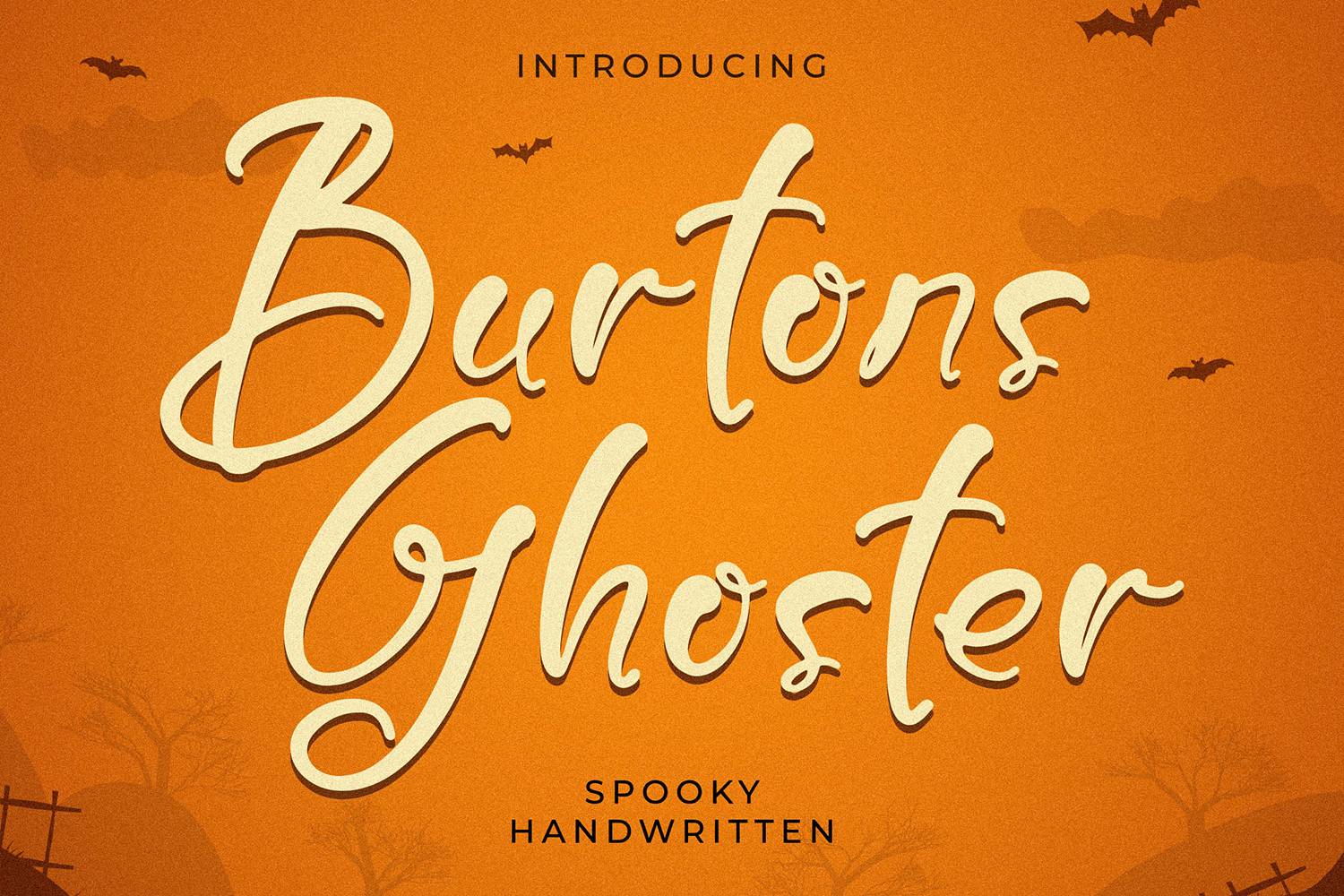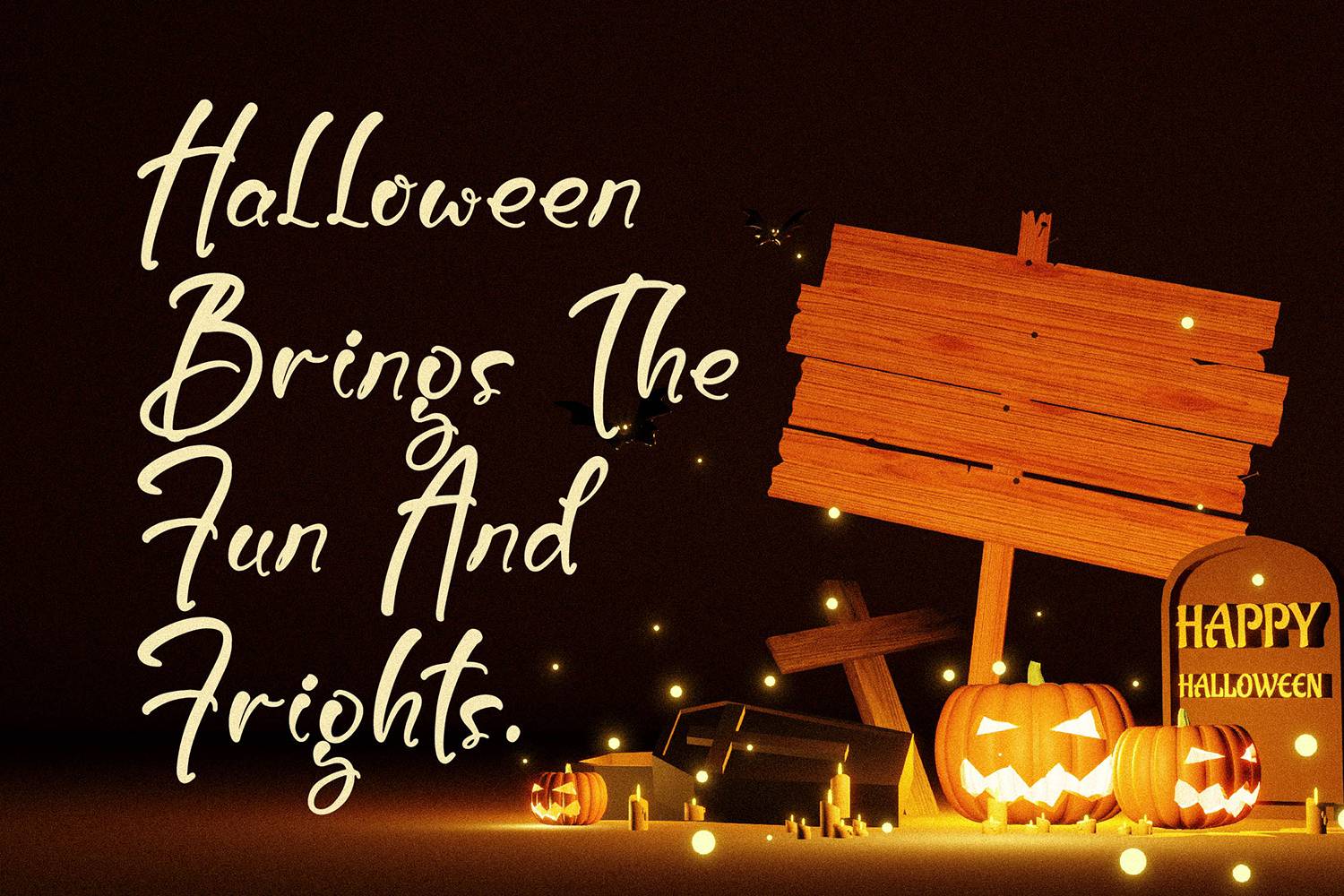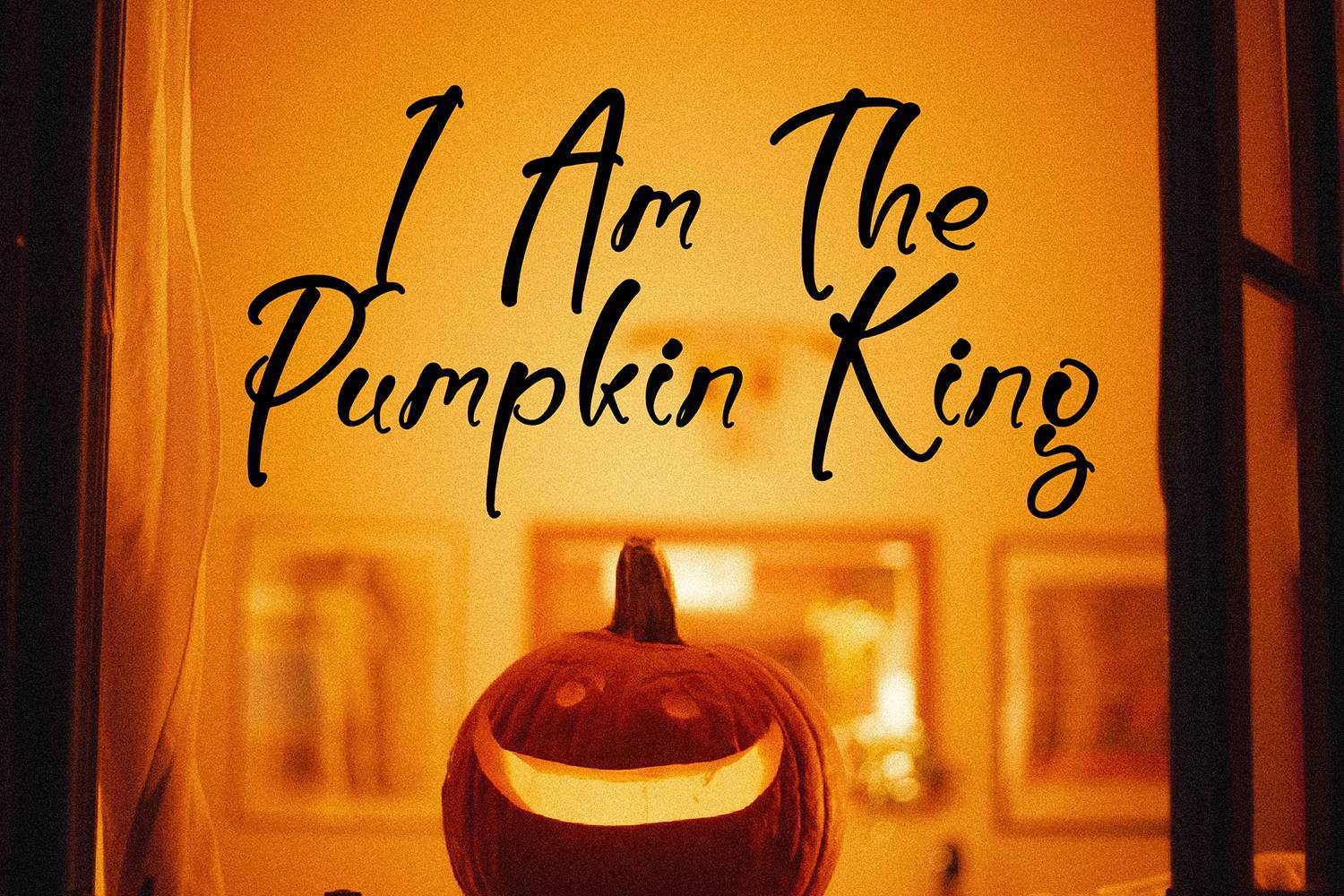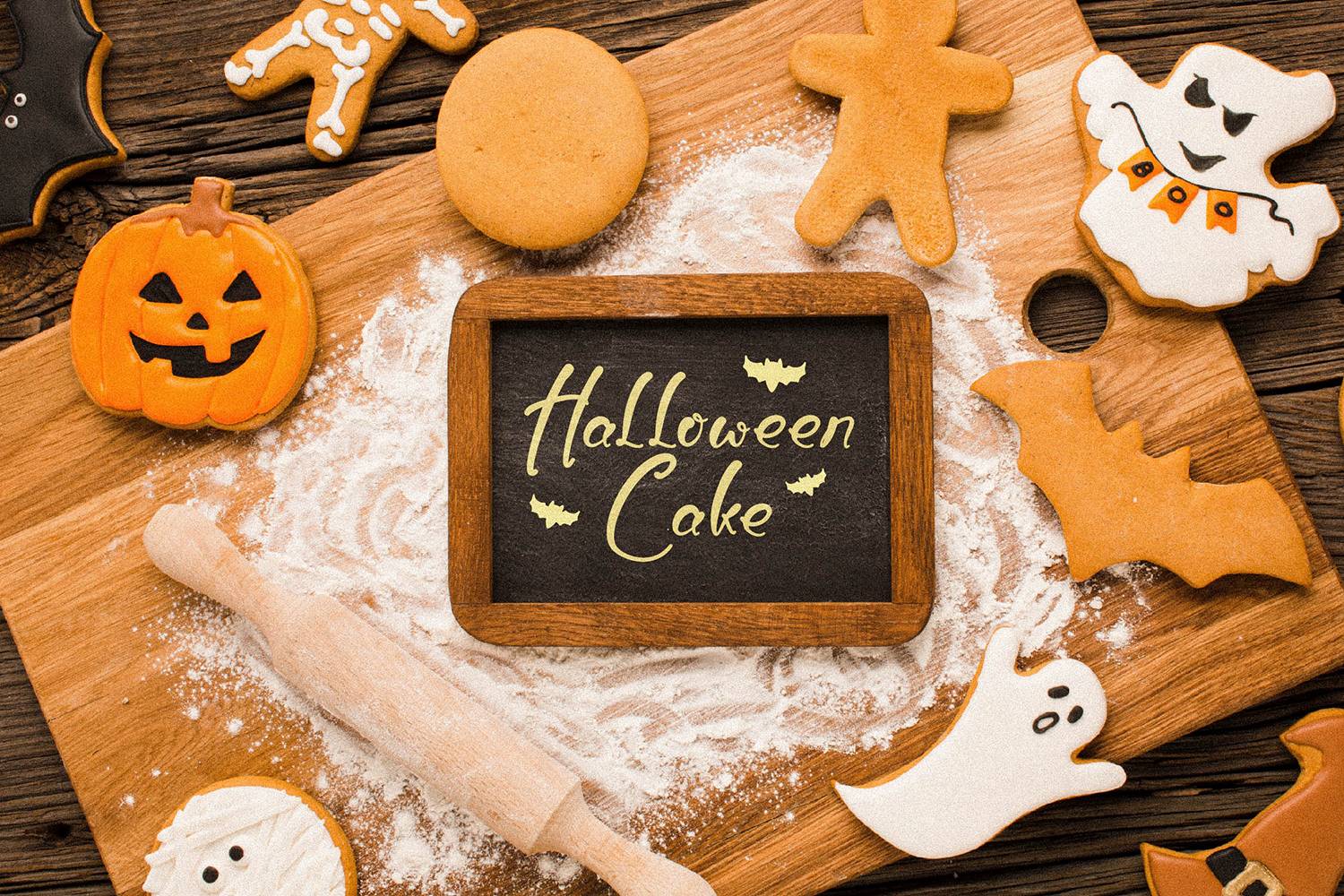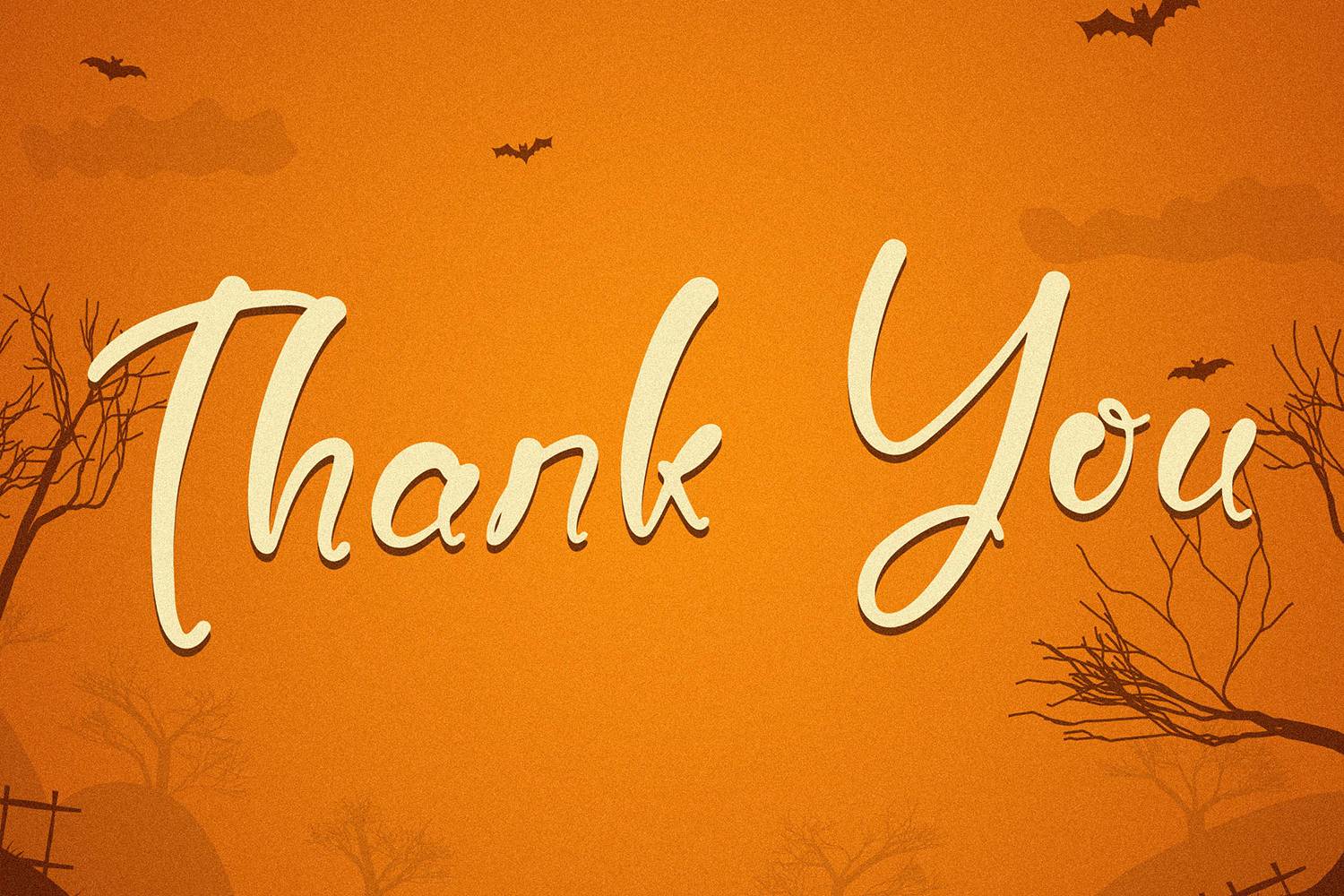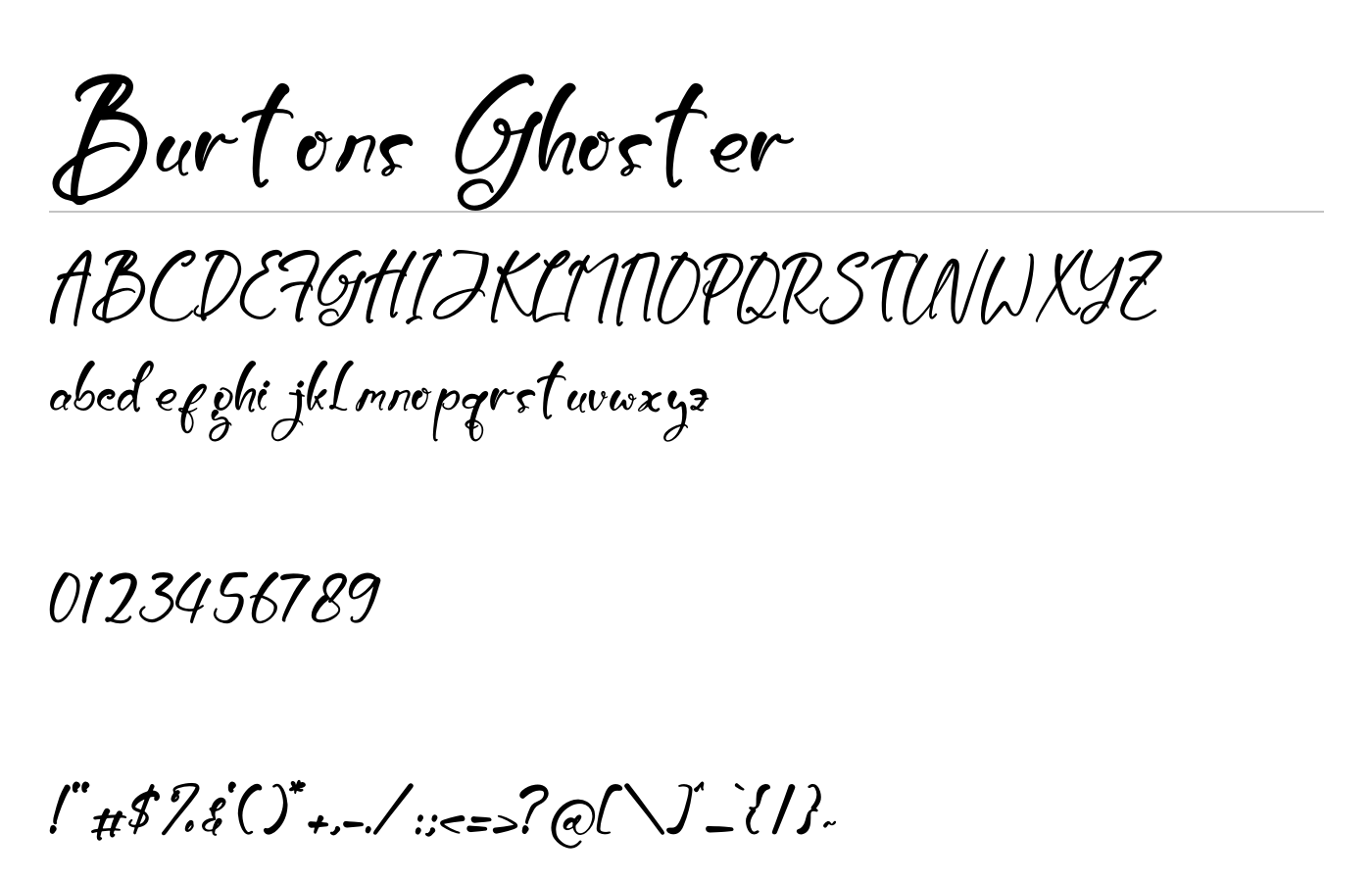
Burtons Ghoster is a playful and elegant script font characterized by its delicate, flowing strokes and slightly irregular, hand-drawn feel. With its light weight and tall, narrow letterforms, it conveys a whimsical yet refined personality, making it ideal for creative brands, invitations, and casual editorial headlines. This font works best where a personal, artistic touch is needed, adding charm and sophistication without feeling overly formal.
Burtons Ghoster Font
About Burtons Ghoster Font